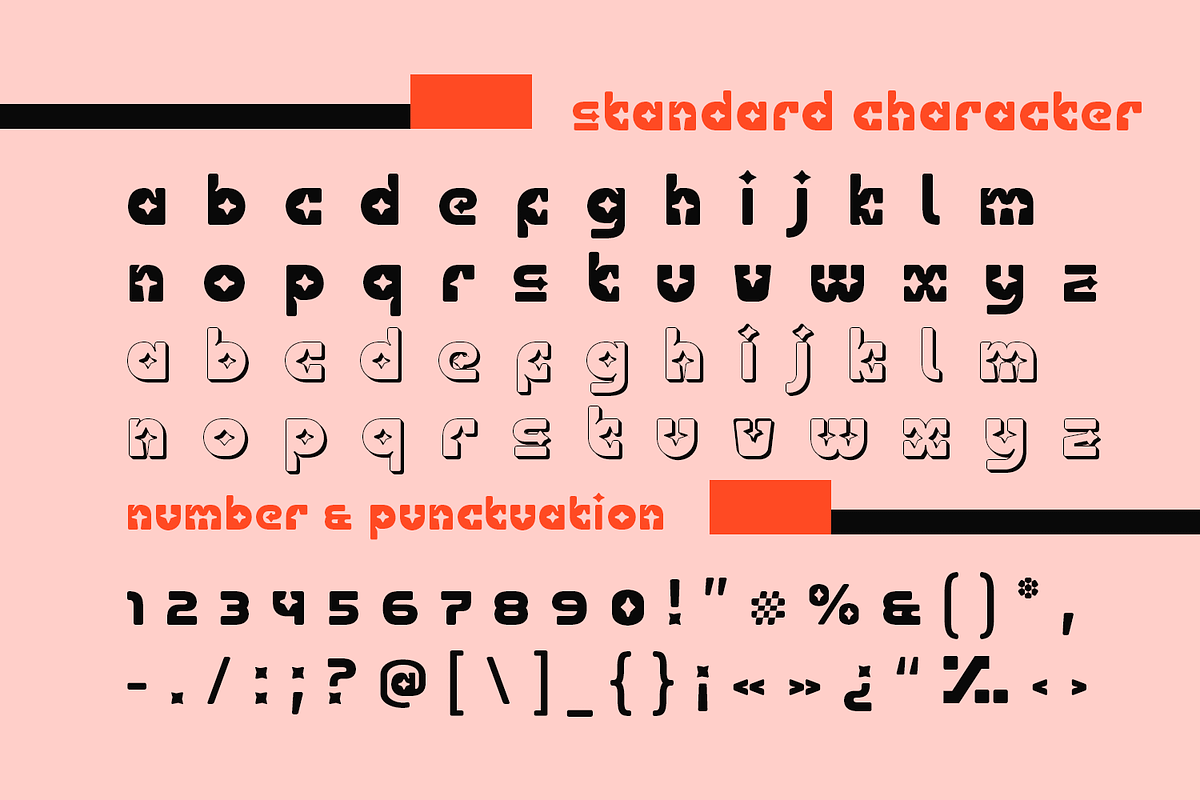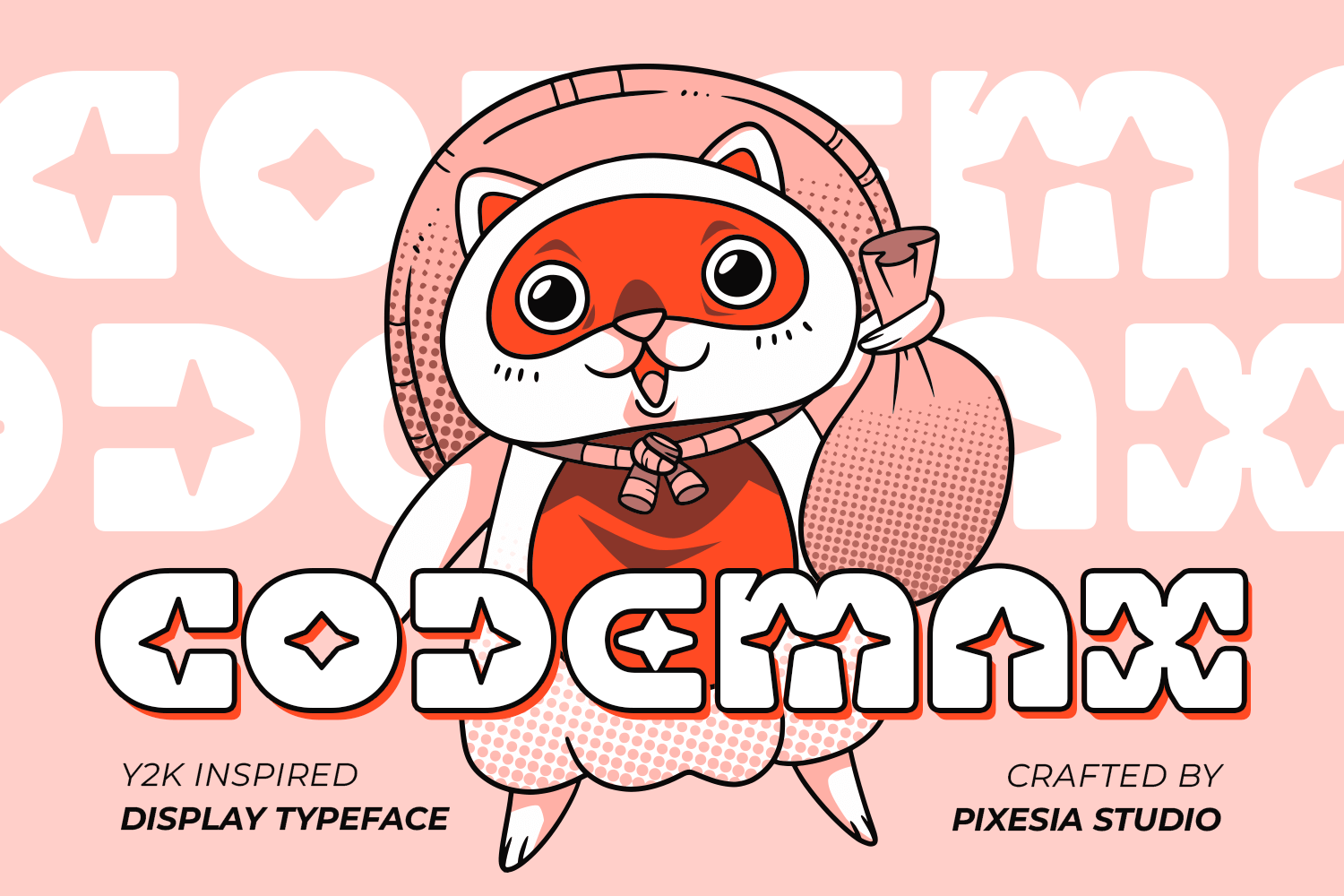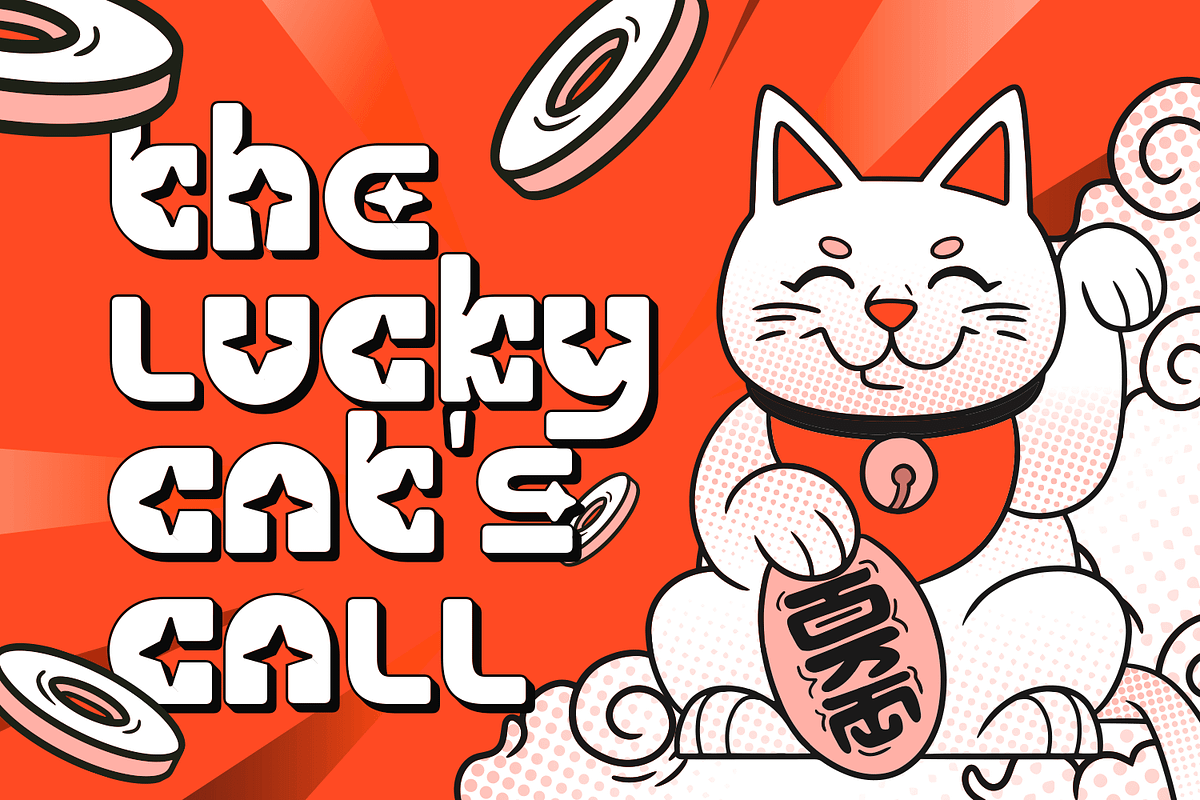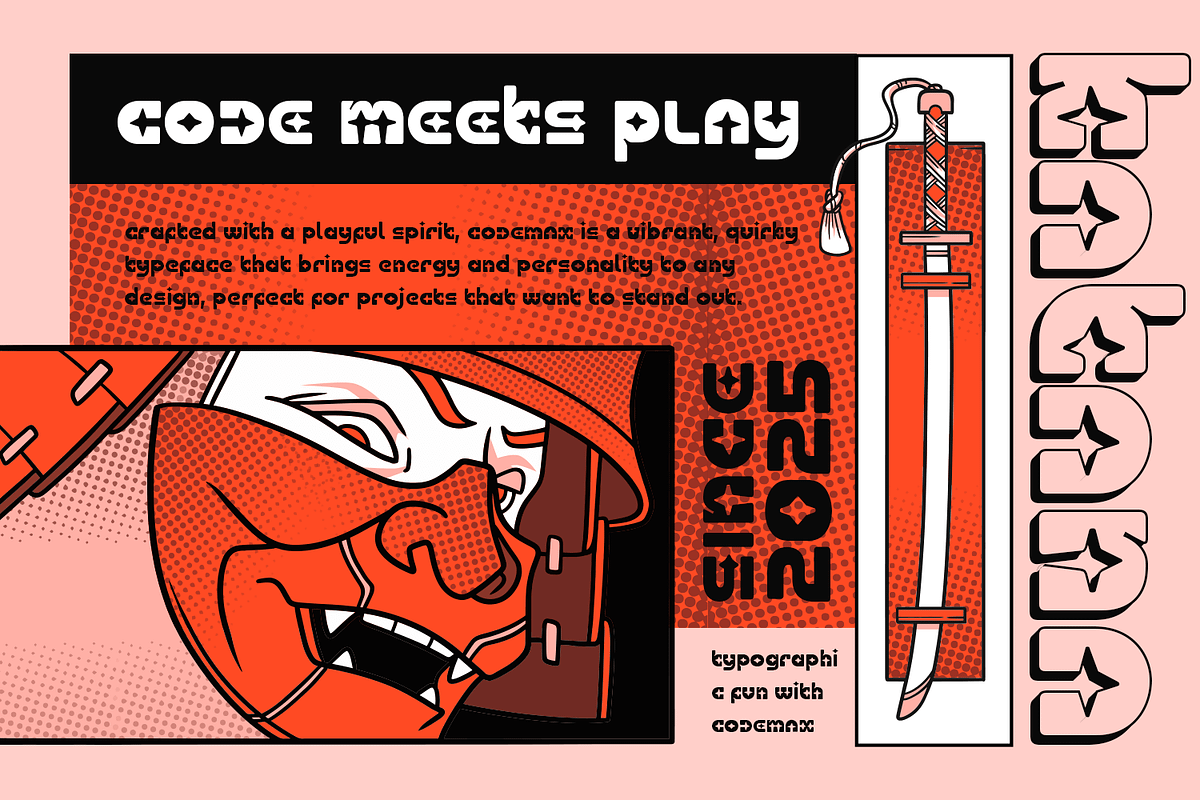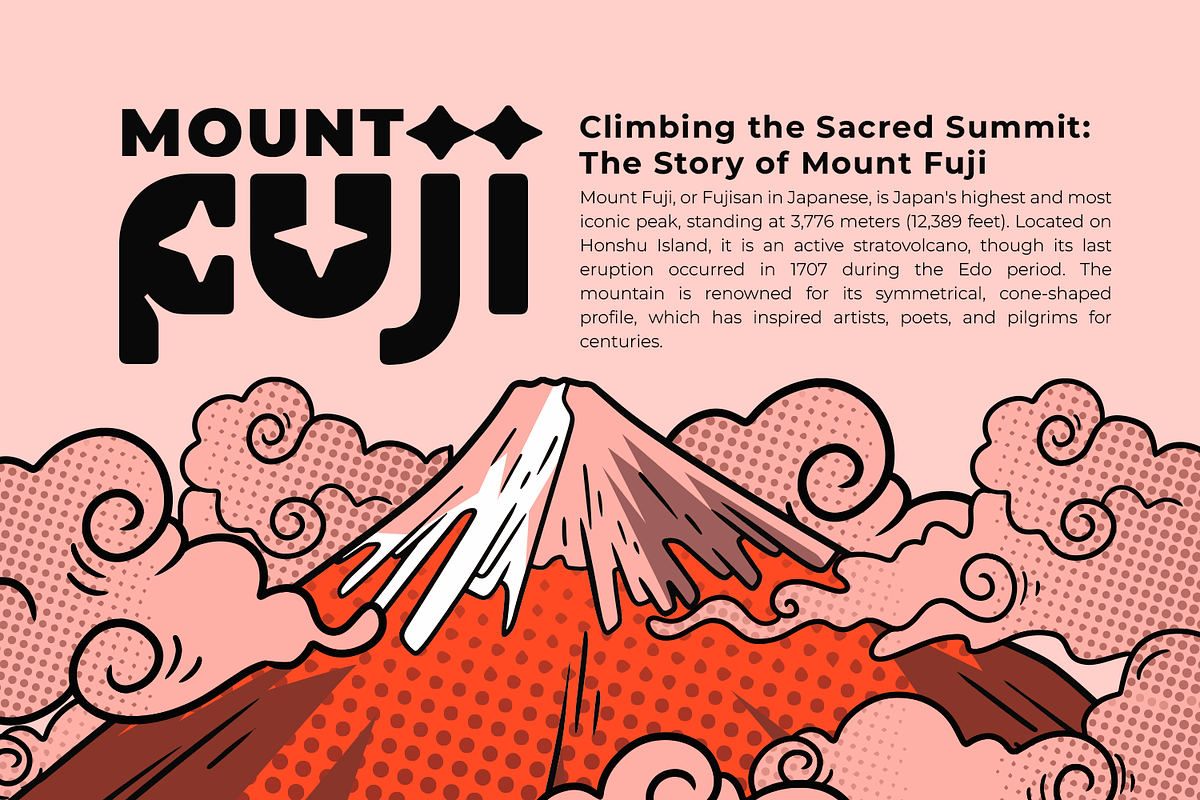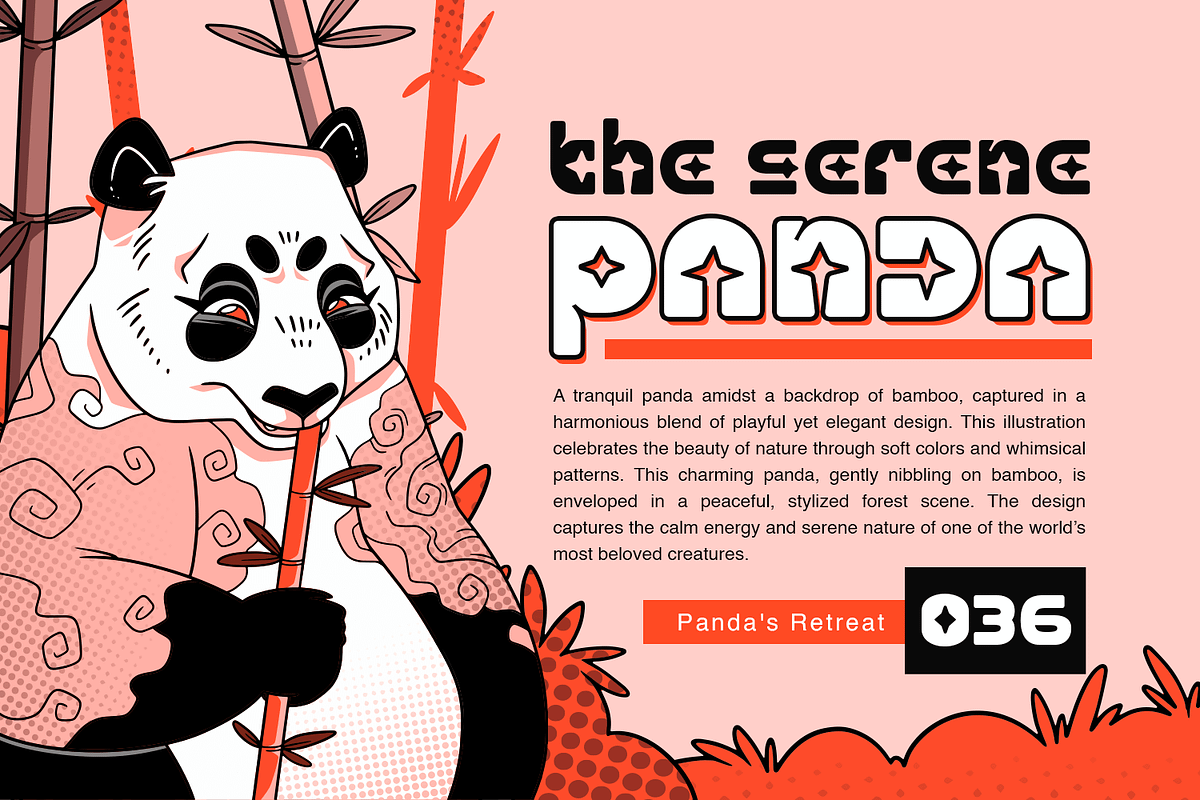
Codemax - Y2K Display Font
Introducing Codemax - Y2K Display Font
Codemax is a bold and futuristic display font inspired by the vibrant aesthetics of the Y2K era. With its chunky letterforms, rounded edges, and unique cutout details, this font captures the essence of early 2000s digital culture, making it perfect for projects that demand a retro-tech vibe.
Codemax is perfectly suited for logotypes, labels, social media posts, advertisements, product packaging, product designs, label, photography, watermark, posters, gaming titles, branding, merchandise, and any design that embraces nostalgia with a modern twist.